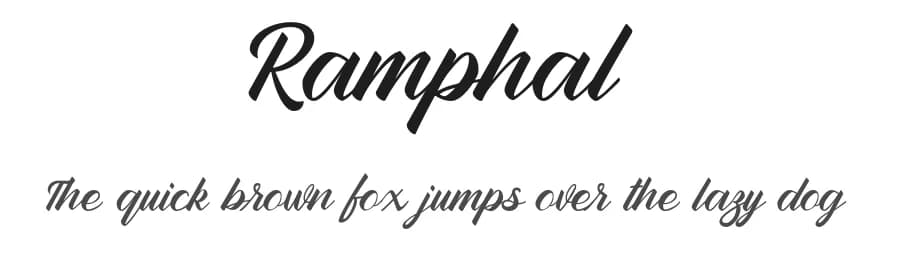
About Ramphal Font
Ramphal Font is a script font that shines as a display or heading face. Pair it with a clean sans-serif or serif font for body text β the contrast creates a clear hierarchy while the two styles stay balanced and easy to read.
Ramphal Font